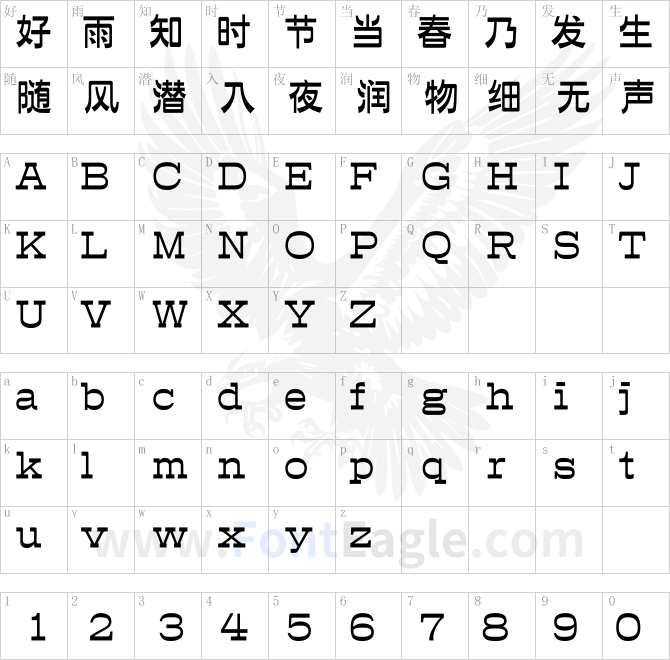
- Font name:华康雅艺体W6(P)
DFPYaYiW6-GB is a great font, widely used in graphic design, single-page menu design, poster design and other fields, and is deeply loved by designers.DFPYaYiW6-GB download.